As a designer, I love using signature-style fonts to create personal brands that feel elegant, refined, and authentic. This collection of 15 elegant signature logo fonts for 2026 features typefaces I personally use to design stylish brand marks with a luxurious and modern identity.
From flowing handwritten scripts to sophisticated signature lettering, each font was selected to bring personality and exclusivity into branding projects. These typefaces work beautifully for personal logos, fashion labels, beauty brands, photography identities, social media branding, and luxury packaging.
I always look for fonts that feel timeless yet distinctive — typography that helps transform a simple logo into a memorable personal signature.
Randy Sofia Signature Font
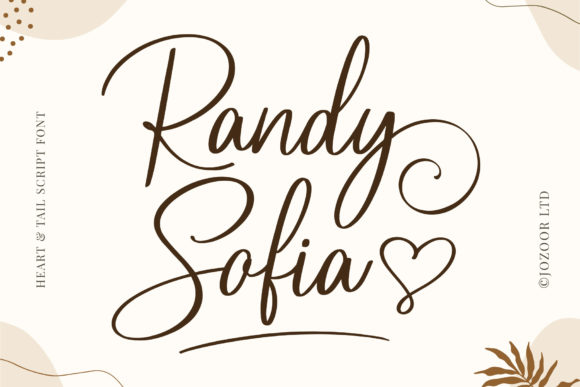
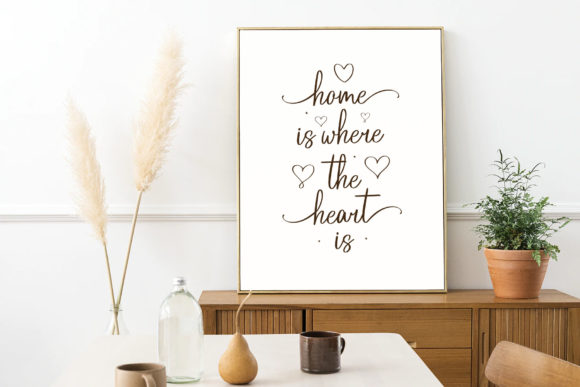
Randy Sofia is a romantic calligraphy font that adds elegance and luxury to any creative design. I enjoy using it for wedding invitations, feminine branding, logos, packaging, and social media graphics because its flowing handwritten style feels graceful and sophisticated. The beautiful swashes and stylish lettering create a timeless look that makes every project feel refined, modern, and visually stunning.
Pink Pastel Signature Font
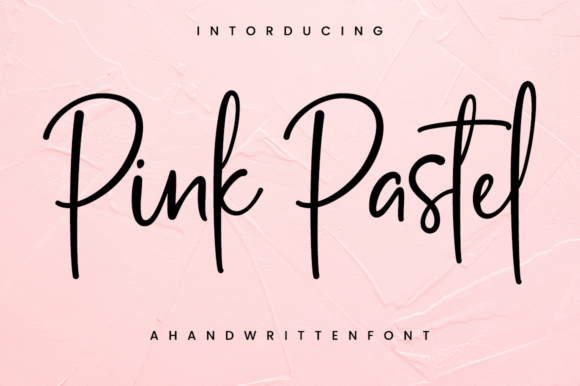
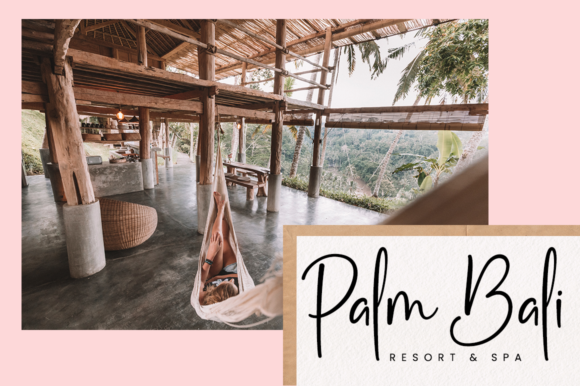
Pink Pastel is a delicate script font that brings elegance and softness into any creative project. I enjoy using it for wedding invitations, feminine branding, logos, packaging, and social media graphics because its graceful handwritten style feels fresh and sophisticated. The smooth flowing curves and classy lettering create a romantic and modern look that makes every design feel beautifully refined.
School Signature Font
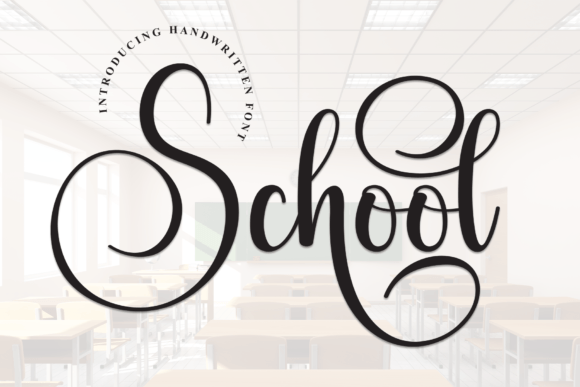
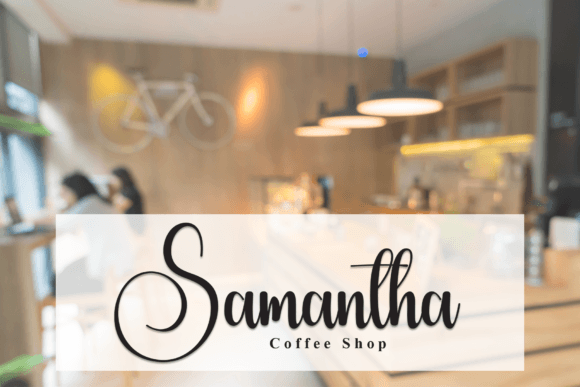
School is a playful handwritten font that adds warmth, charm, and creativity to any design project. I love using it for wedding invitations, greeting cards, branding, classroom materials, and social media graphics because its friendly handwritten style feels both fun and elegant. The soft curves and modern lettering create a cheerful and stylish look that makes every design feel personal and memorable.
Rustic Wedding Signature Font
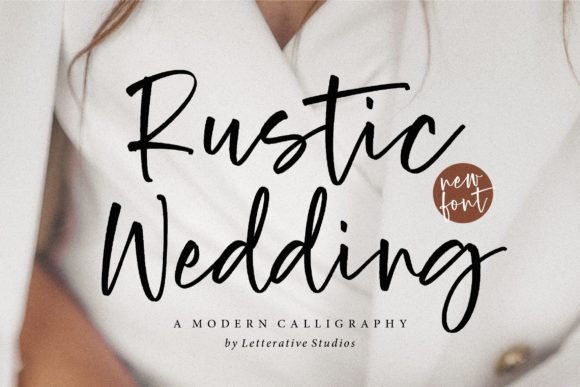
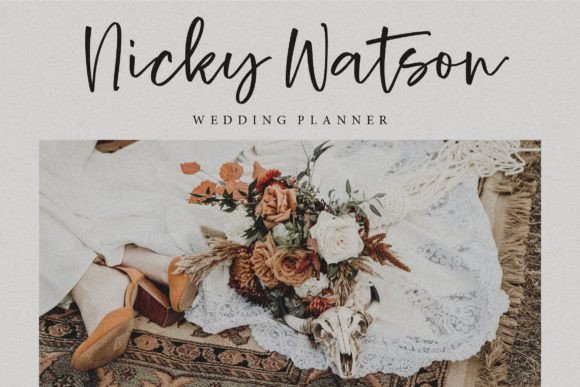
Rustic Wedding is a modern calligraphy font that adds elegance and romance to any creative project. I love using it for wedding invitations, greeting cards, branding, packaging, and social media graphics because its handwritten style feels soft, stylish, and timeless. The graceful lettering and modern calligraphy details create a beautiful sophisticated look that makes every design feel warm and memorable.
Crayones Signature Font
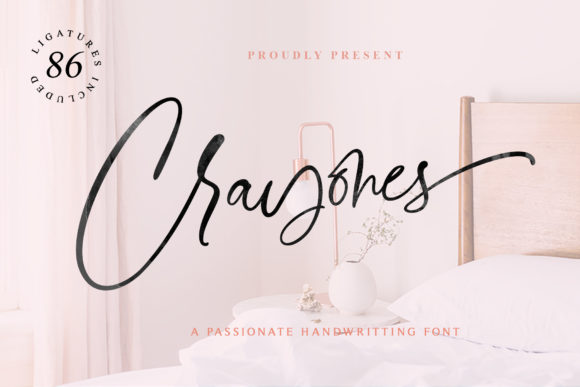
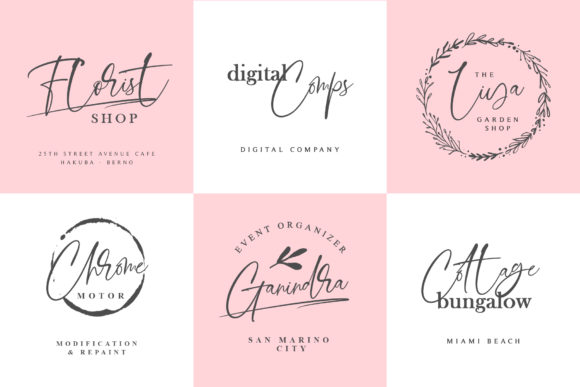
I use Crayones in my design projects when I want a handwritten font that feels charming, delicate, and full of personality. Its lovely character style adds a soft and playful touch to branding, invitations, social media graphics, and creative layouts. I love how it brings a light, hand-drawn feel that makes my designs more warm and expressive.
Highbright Signature Font
I use Highbright in my design projects when I want typography that feels elegant, vintage, and well-balanced. Its smooth curves and refined script style work beautifully for fashion branding, editorial layouts, invitations, and sophisticated visual identities. I also appreciate its PUA encoding, which gives me easy access to all glyphs and swashes for more expressive and customized design compositions.
Baby Magnolia Signature Font
I use Baby Magnolia in my design projects when I want typography that feels delicate, flowing, and naturally expressive. Its handwritten style brings a soft and lively character to creative ideas, making branding, invitations, and social media visuals feel more personal and emotional. I also appreciate its PUA encoding, which gives me easy access to all glyphs and swashes for more detailed and customized designs.
Masterline Calligraphy SignatureFont
I use Masterline Calligraphy in my design projects when I want modern calligraphy with a casual yet elegant feel. Its smooth letterforms and beautiful swashes help me create expressive logos, wedding invitations, branding, packaging, headlines, and editorial layouts. I love how versatile it is, working equally well for both decorative and professional design applications while keeping a stylish handwritten character.
Bridgerton Signature Font
I use Bridgerton Script in my design projects when I want calligraphy that feels luxurious, elegant, and highly refined. Its smooth and detailed letterforms create a glamorous yet readable style that works beautifully for invitations, branding, packaging, fashion visuals, menus, and editorial layouts. I love how its classic decorative copperplate influence with a modern touch brings sophistication and romance to every composition.
Histeria Bites Signature Font
I use Histeria Bites in my design projects when I want a modern, on-trend monoline font with a clean yet expressive feel. Its striking style adds subtle flair to branding, logos, social media graphics, and editorial layouts while keeping everything minimal and refined. I love how it brings a fresh, contemporary energy without overwhelming the overall design.